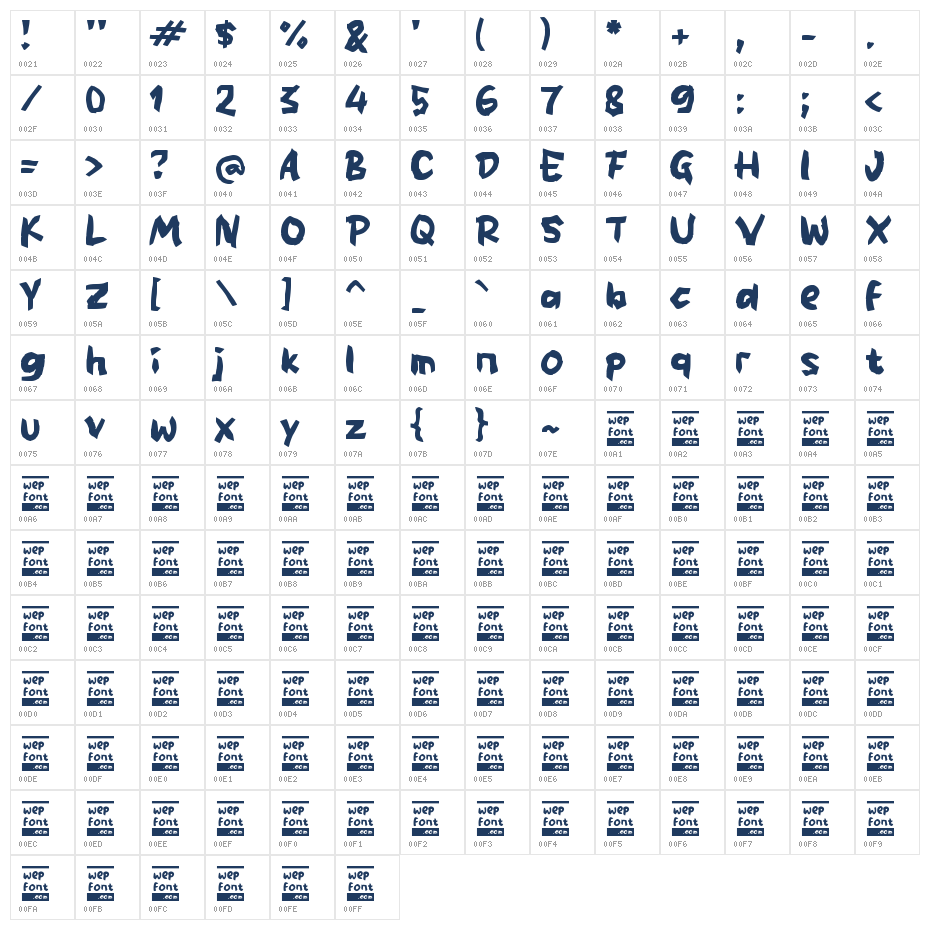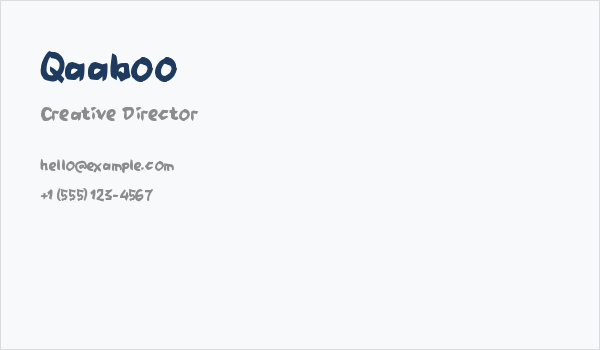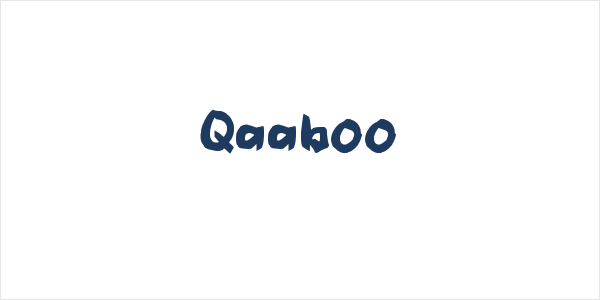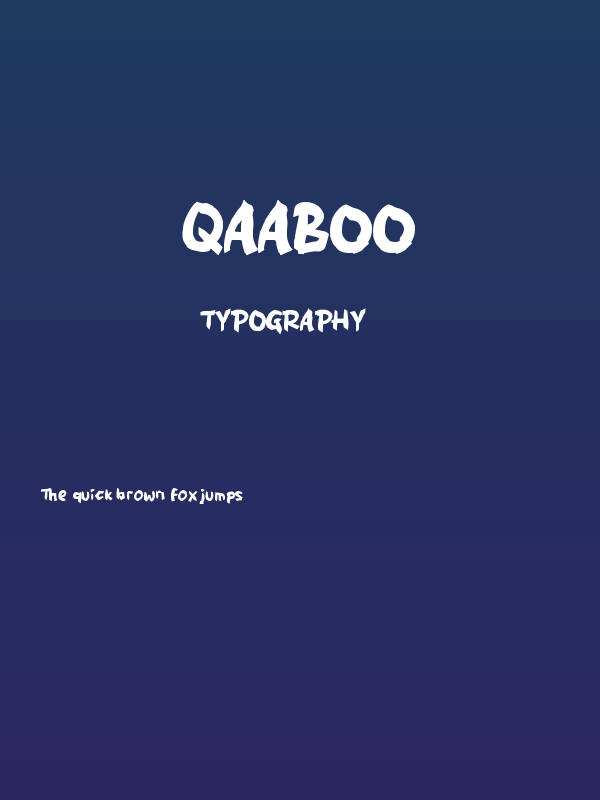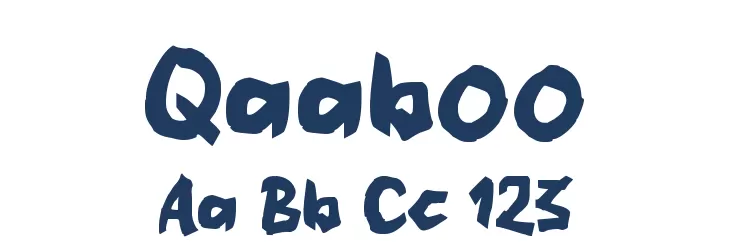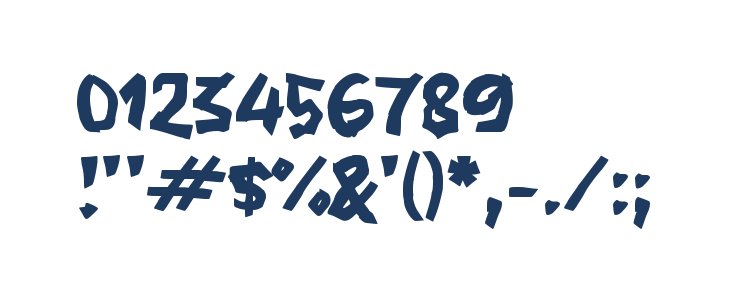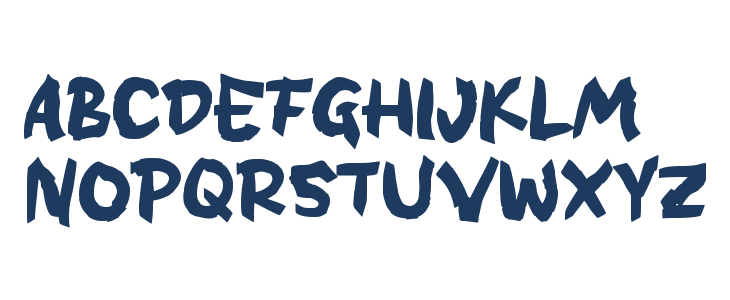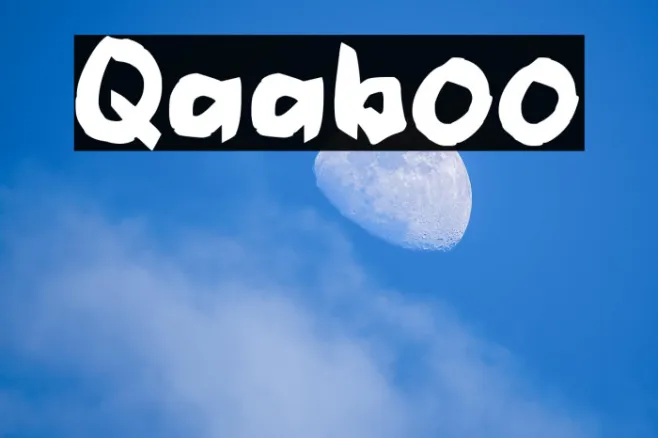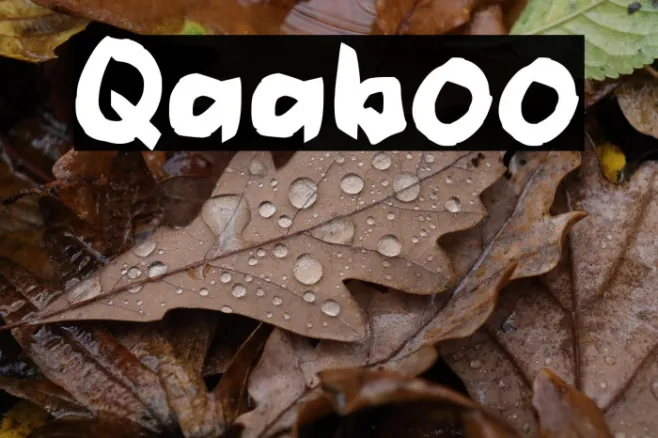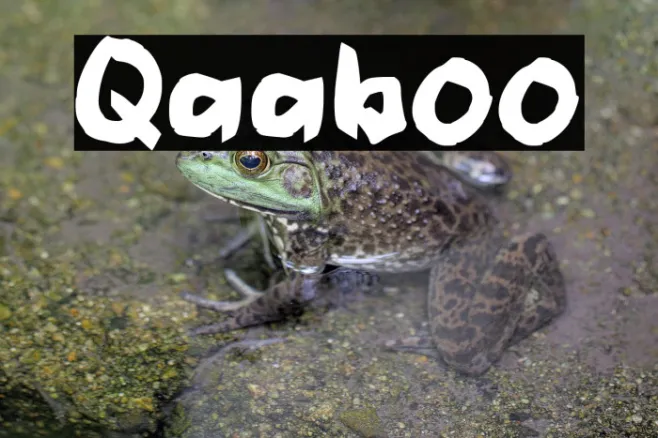
Qaaboo Font
Qaaboo Description
A bold, playful, and informal handwritten style font with irregular, brush-like strokes.
QAABOO UPPERCASE
QAABOO LOWERCASE
QAABOO OTHER CHARS
| Use Case | Headlines, Posters, Children's books, Logos |